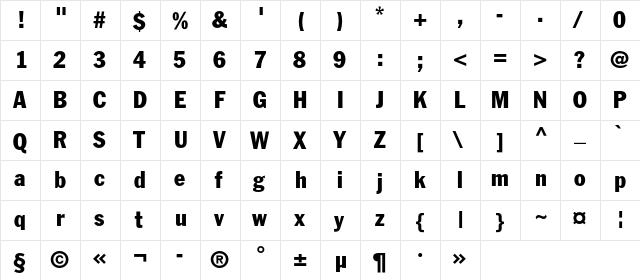
FagotCondensed Regular
Design Context for FagotCondensed Typeface
FagotCondensed takes a measured approach to typography — its balanced proportions and neutral character make it a reliable workhorse for both digital and print work. Its narrow stance lets it pack a punch even in space-constrained designs.